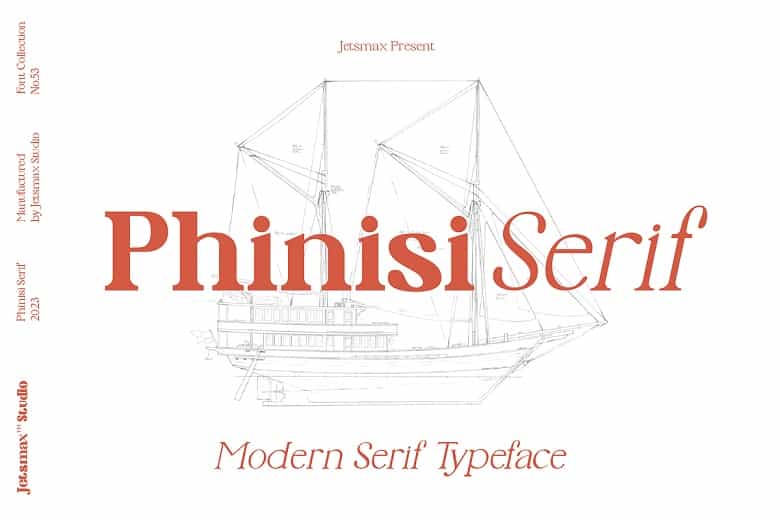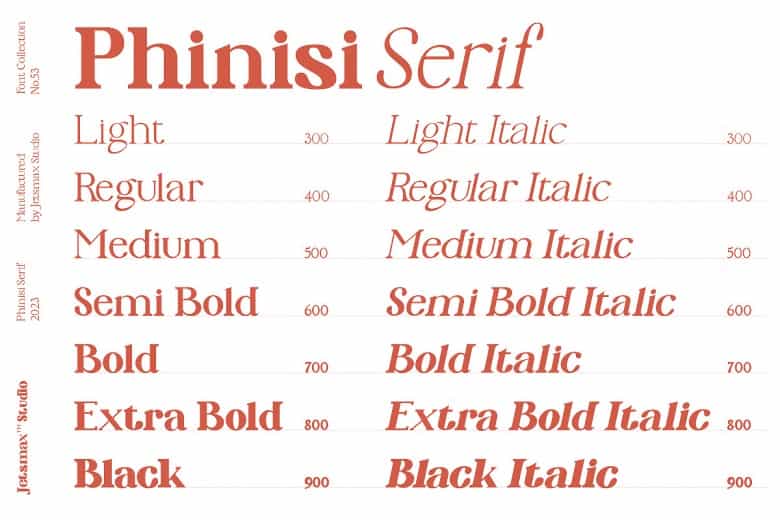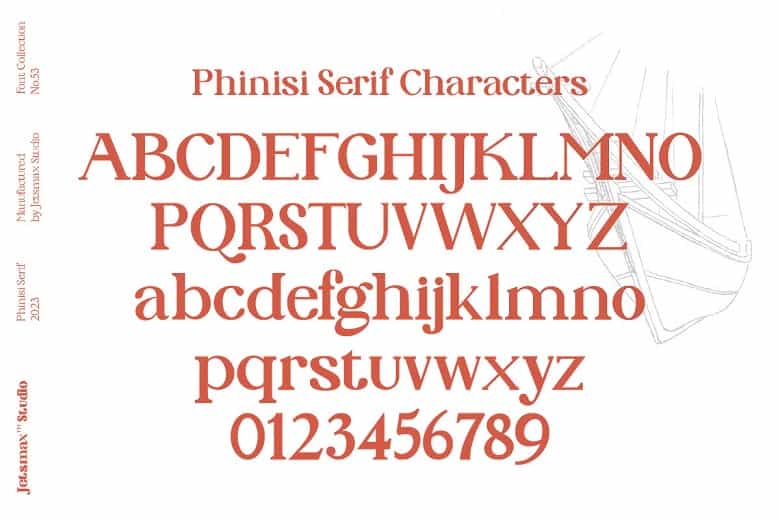
Phinisi Serif Font Family is a modern classic, this typeface comes in different weights and styles, and that is where the word versatility fits in. It is quite sophisticated yet very legible and text optimized, suitable for various projects from corporate publishing to joyful and playful design.